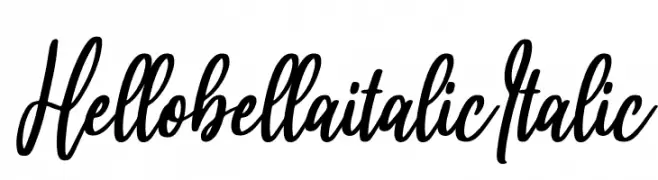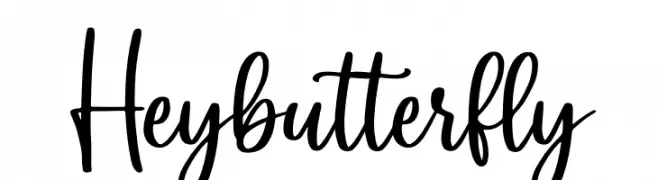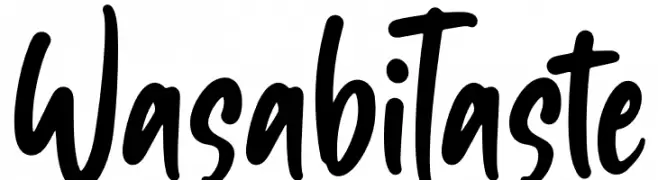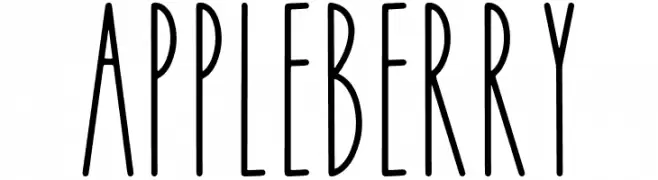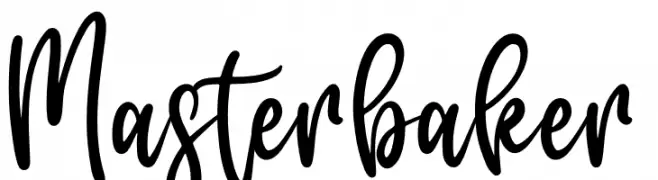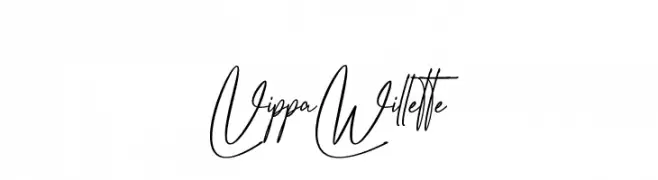
A lively and energetic script font with bold, flowing letterforms.
A bold, italic script font with fluid, connected characters and strong visual impact.
A flowing, cursive script font with elegant and connected letters.
A bold, expressive script font with a playful, handwritten style.
A lively, cursive handwritten font with a modern, whimsical style.
A bold, handwritten font with dynamic, brush-like strokes.
A flowing, cursive font with elegant loops and artistic flair.
A tall, slender, and playful font with consistent stroke width and artistic flair.
A lively, expressive handwritten font with fluid cursive strokes and playful loops.
A flowing, cursive font with elegant loops and swashes, perfect for artistic projects.